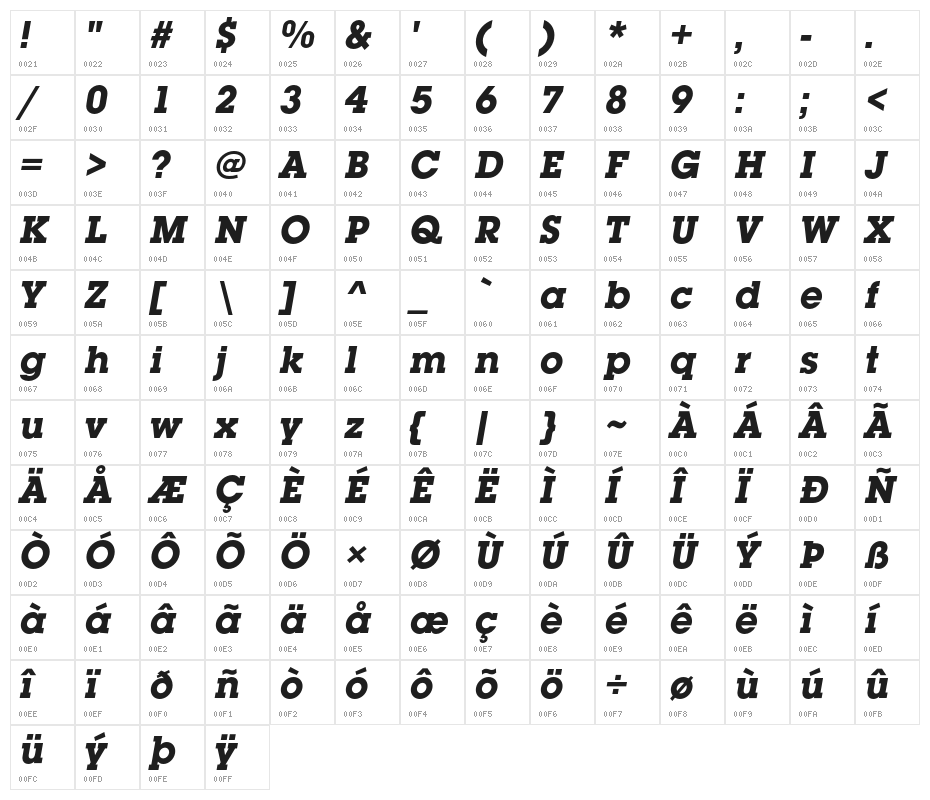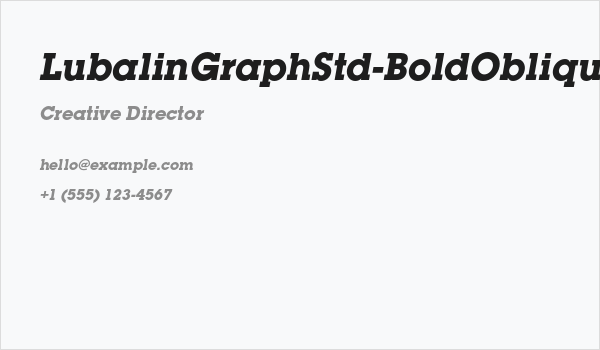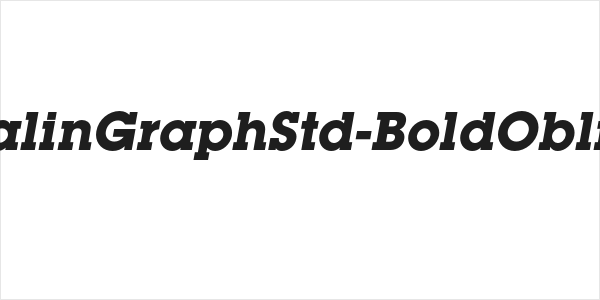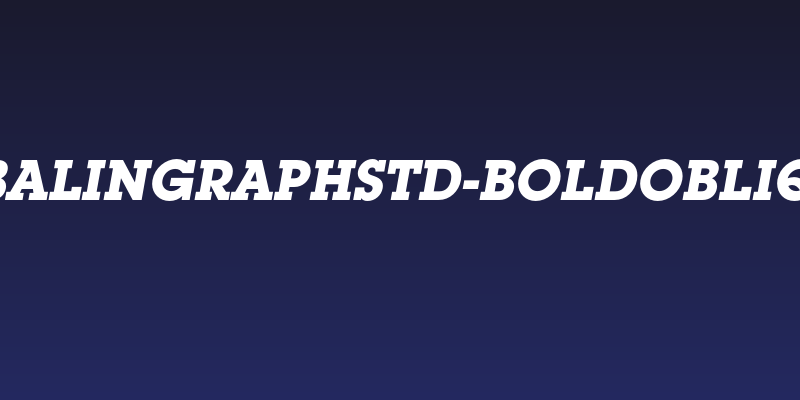
LubalinGraphStd-BoldOblique Font
LubalinGraphStd-BoldOblique Description
This font features a bold and oblique style with a strong presence. The characters are designed with a slab serif structure, giving them a robust and sturdy appearance. The oblique angle adds a dynamic and forward-moving feel, making it suitable for attention-grabbing headlines and titles. The uppercase and lowercase letters maintain a consistent weight, ensuring readability and balance. The numerals are clear and bold, matching the overall aesthetic of the font. Special characters are included, providing versatility for various design needs.
| Proposed Projects | Ideal for headlines, posters, branding materials, and any project requiring a strong, impactful typeface. |